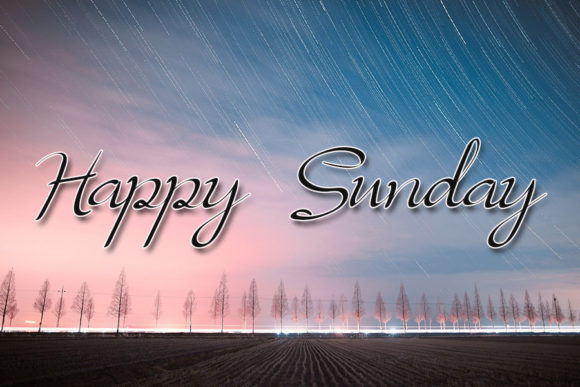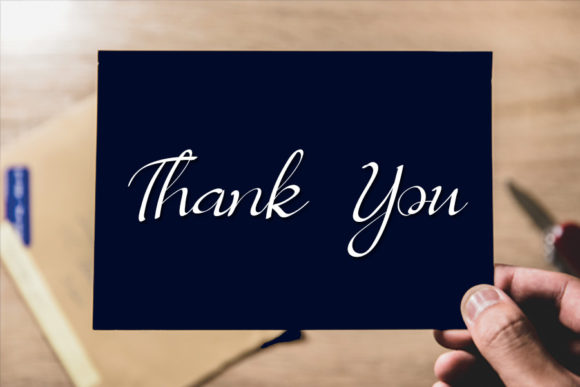
Sunflowers Font
About Sunflowers Font
Sunflowers is a beautiful and attractive handwritten font that brings a touch of charm and elegance to your designs. With its flowing and organic letterforms, this font is perfect for a wide range of applications, including clothing designs, apparel, mockups, logo designs, YouTube banners, and various other creative projects.
The delicate and graceful strokes of Sunflowers add a sense of beauty and femininity to your typography. Whether you’re creating a logo for a fashion brand, designing a t-shirt with a stylish slogan, or crafting a YouTube banner that captures attention, Sunflowers will add a touch of sophistication and uniqueness to your designs.
The versatility of Sunflowers allows it to adapt to different design styles and themes. It can evoke a sense of elegance and romance in wedding invitations and stationery, bring a playful and whimsical vibe to children’s clothing designs, or add a touch of sophistication to luxury brand logos. The possibilities are endless.
Sunflowers is designed with legibility in mind, ensuring that your message is easily readable and understood. The balanced and well-crafted letterforms maintain clarity even at smaller sizes, making it suitable for various print and digital applications.
Whether you’re working on a personal project or a client’s design, Sunflowers offers a range of uppercase and lowercase letters, numerals, punctuation marks, and multilingual support to accommodate different languages and design requirements.
In summary, Sunflowers is a beautiful and attractive handwritten font that adds charm and elegance to your designs. Its versatility and legibility make it suitable for a wide range of applications, including clothing designs, apparel, mockups, logo designs, YouTube banners, and more. Incorporate Sunflowers into your creative projects and let it bring a touch of beauty and sophistication to your typography.